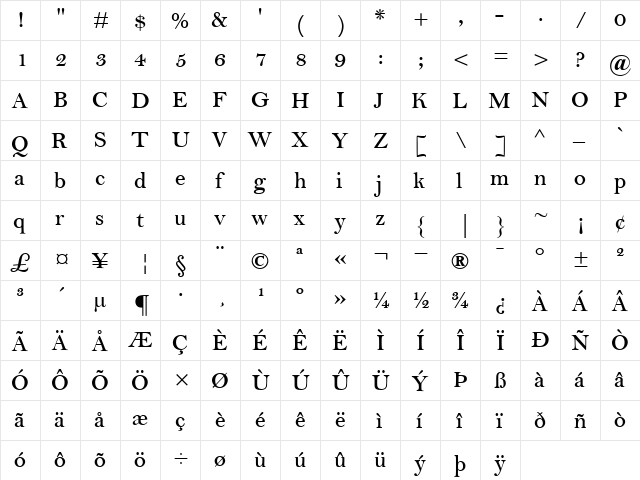
BellMT-SemiBold Semi Bold
Design Context for BellMT-SemiBold Typeface
BellMT-SemiBold is a composed and adaptable typeface that performs quietly and consistently across a wide range of design contexts. The heavy weight commands attention and anchors typographic hierarchies.